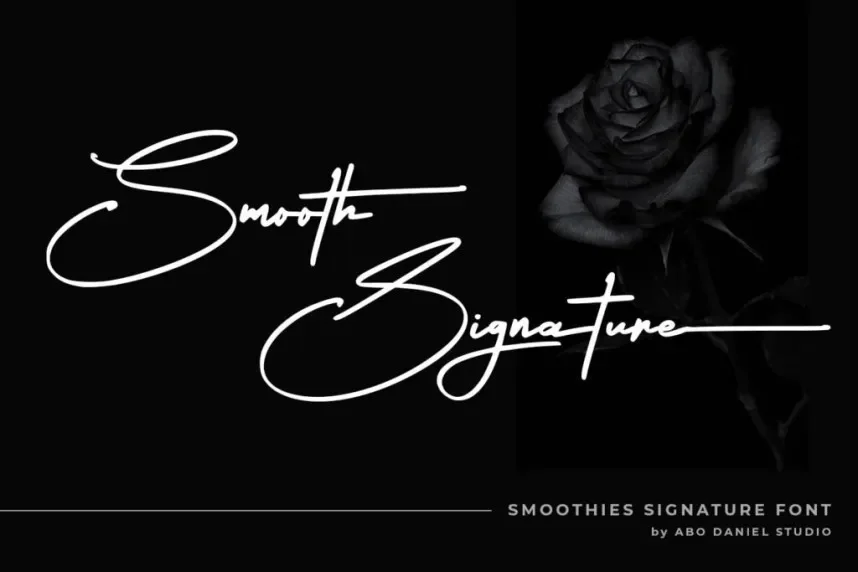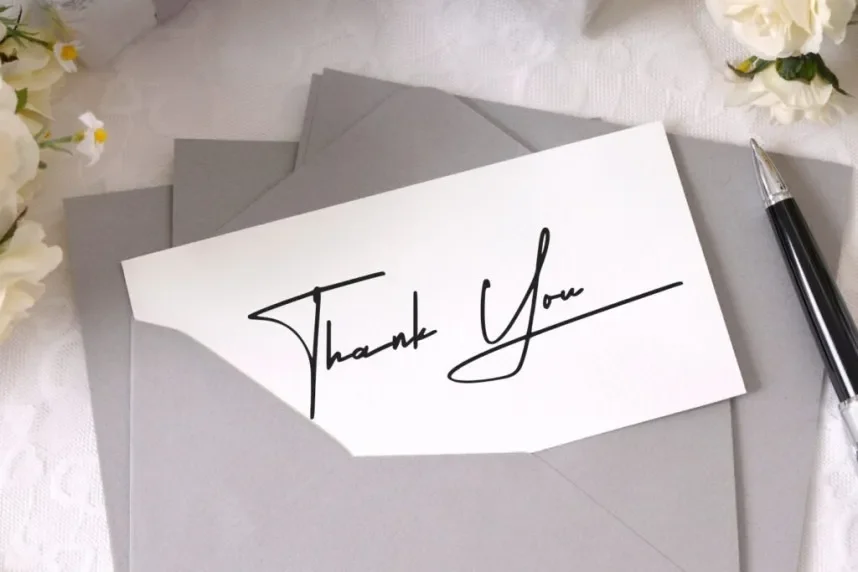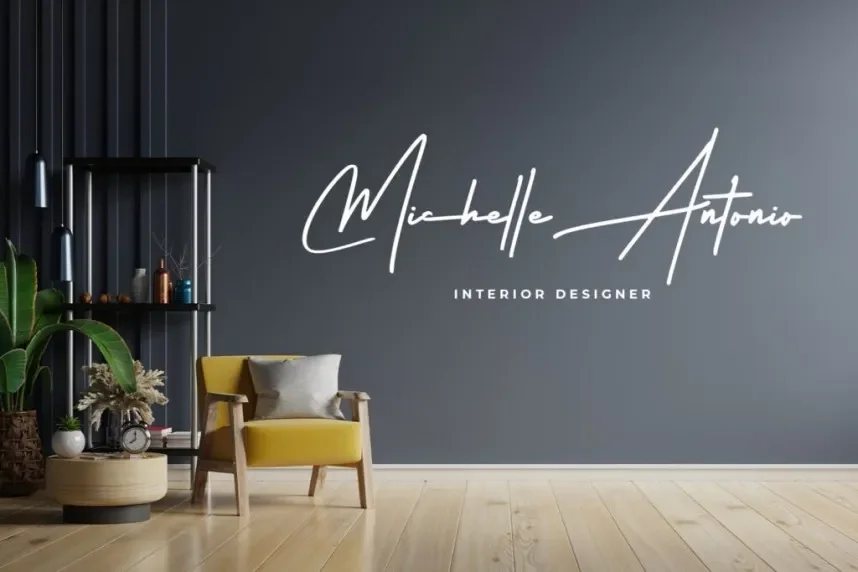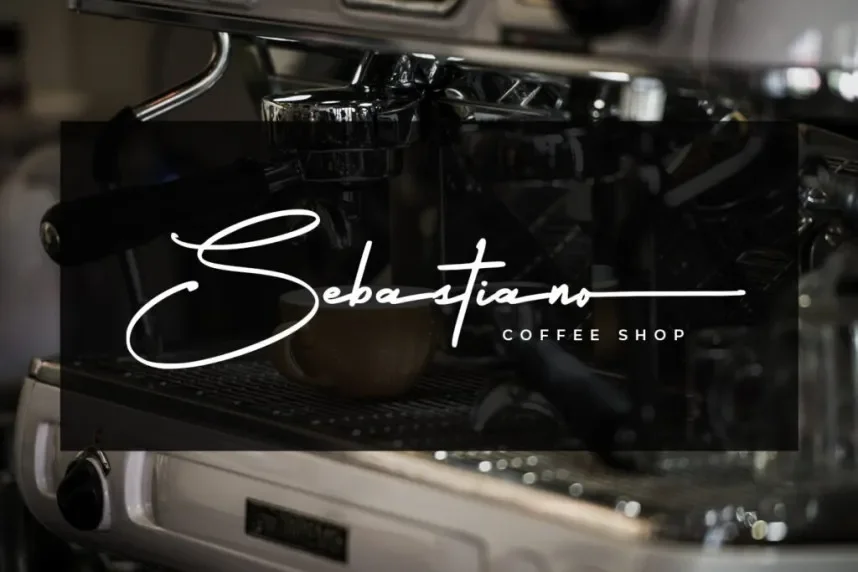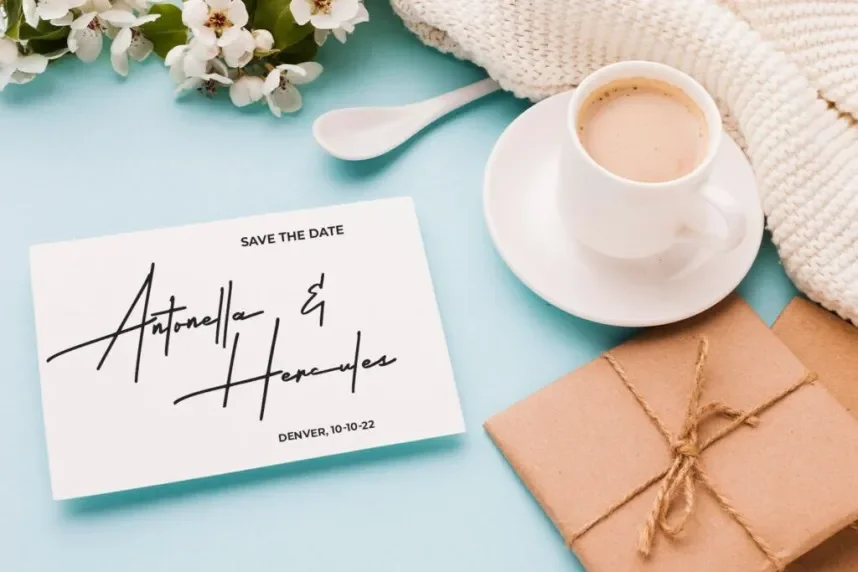
Smooth Signature Script Font solves a common design problem: adding a handwritten look without hurting readability. Many script fonts feel messy in logos, email signatures, and wedding invitations, especially at small sizes or in digital layouts.
Smooth Signature Script is a signature-style script font with connected letterforms, consistent stroke weight, and gentle curves. The monoline structure keeps letters balanced and readable across print and screen use. It avoids heavy swashes, which helps maintain clarity in branding and UI design.